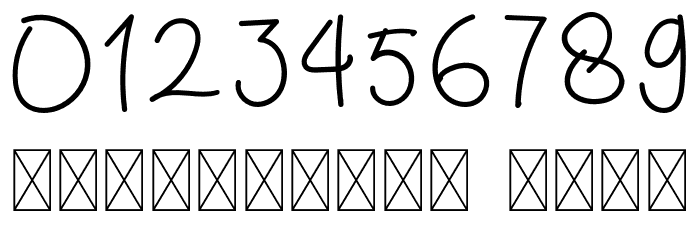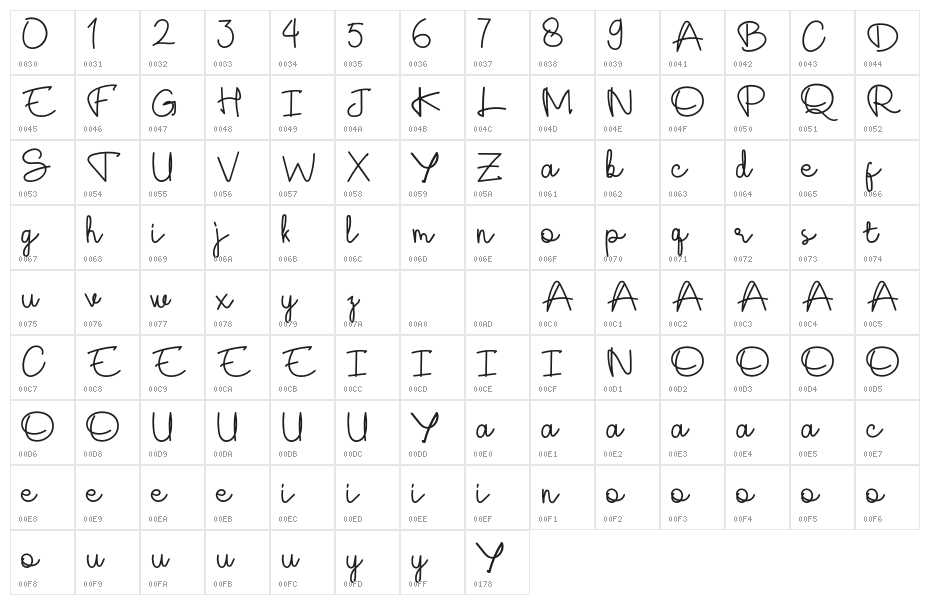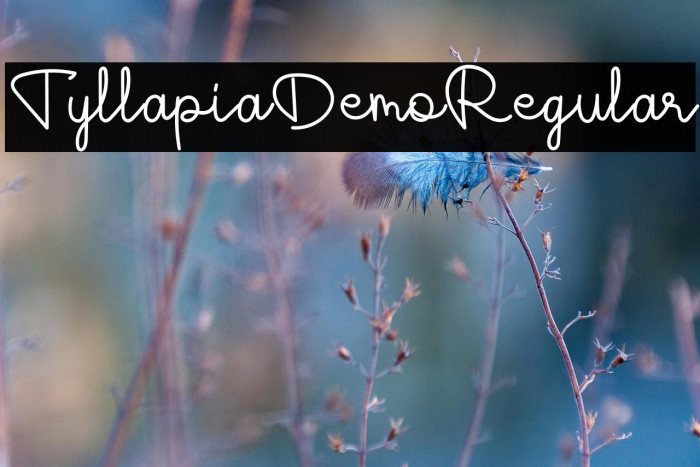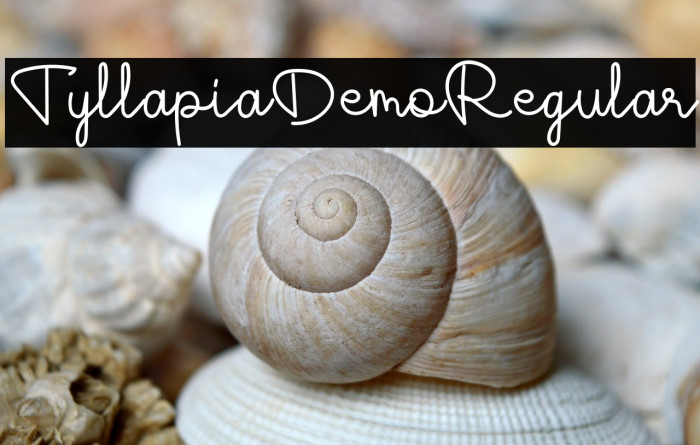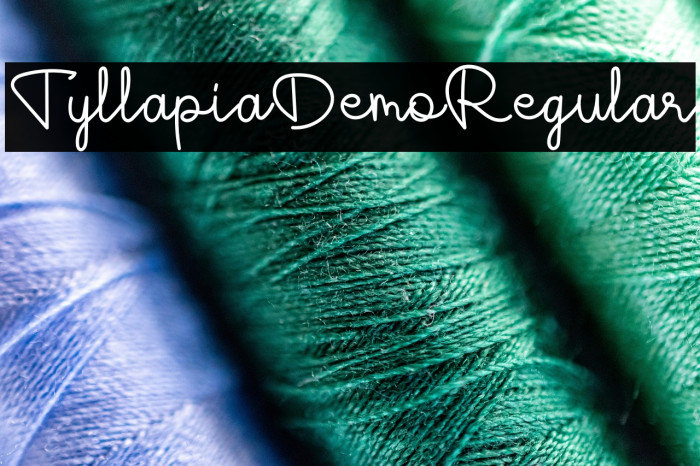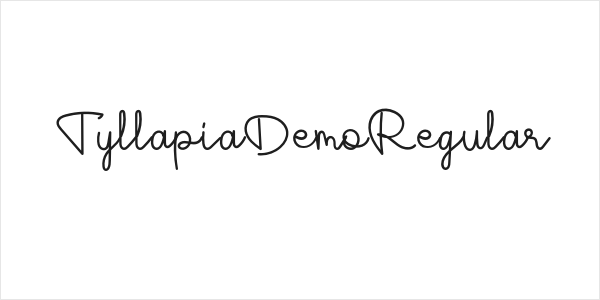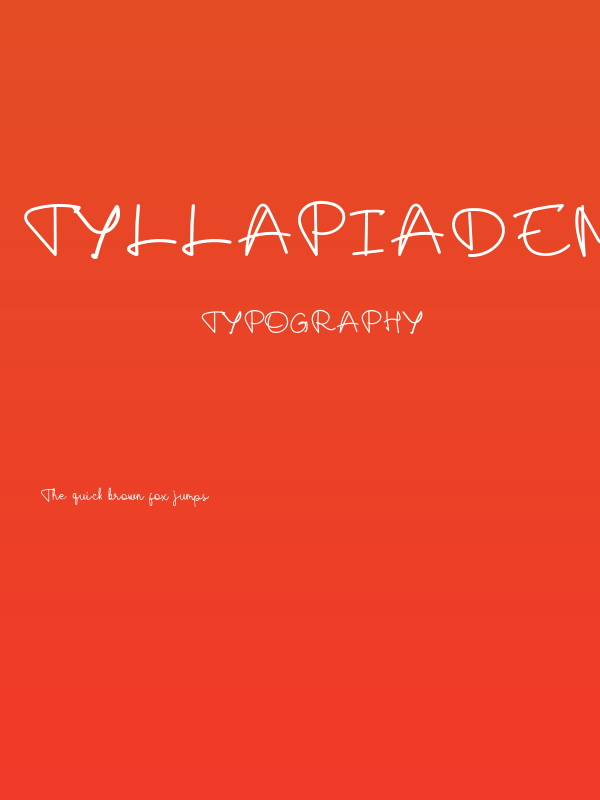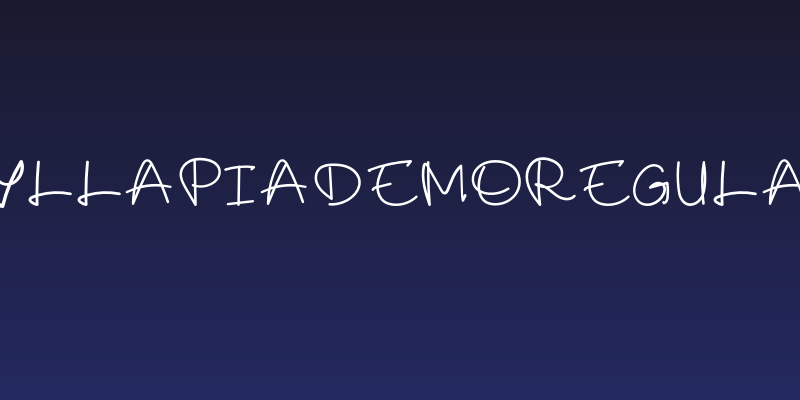
TyllapiaDemoRegular Font
This font features a playful and casual handwritten style, with a smooth and flowing script that mimics natural handwriting. The uppercase letters are slightly more structured, maintaining a balance between formality and informality. The lowercase letters are more fluid, with some characters having loops and curves that add to the font's charm. The numbers are clear and easy to read, maintaining the same playful style. The special characters are consistent with the overall design, ensuring a cohesive look across all text elements. This font is ideal for projects that require a personal touch, such as invitations, greeting cards, or creative branding.